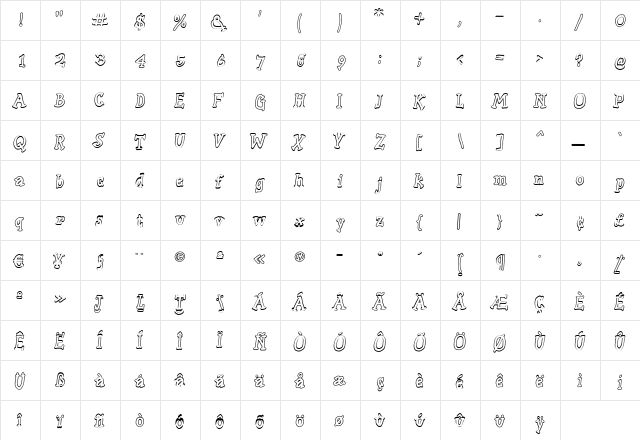
SlabSerifWrittenOutline Regular
Design Context for SlabSerifWrittenOutline Typeface
SlabSerifWrittenOutline is built around its visual character rather than neutral utility — its distinctive forms are designed to make an impression at display sizes.
Font Pairing: Pair with a clean neutral sans-serif for body copy to let SlabSerifWrittenOutline's character lead without overwhelming the composition.
Pro Tip: Use SlabSerifWrittenOutline exclusively at display sizes — it was designed to be seen, not read at length. Let a neutral companion handle body copy.